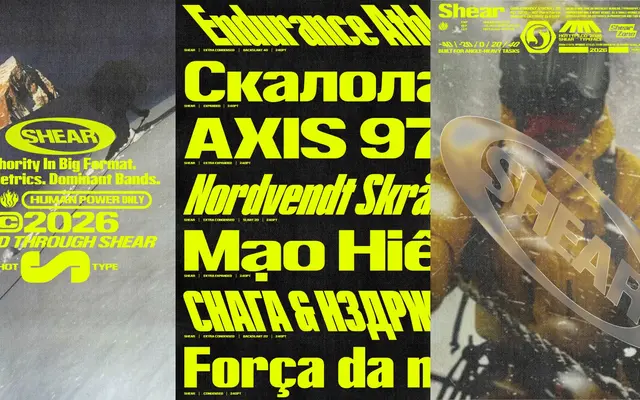
A 20-style display sans organised across four widths and five slant positions rather than a conventional weight range.
Shear forgoes the usual light-to-black weight axis in favour of four width variants — Extra Condensed, Expanded and Extra Expanded — each available in five slant positions ranging from Backslant 40 through Neutral 0 to Slant 40. The result is a family built for headline and poster work where spatial tension and angle, not weight, carry the typographic expression. Latin and Cyrillic coverage is offered as separate licensing options.
A single-weight display sans structured around width variants and a slant axis rather than weight variation; the geometric, upright construction with extreme condensed and expanded widths places it firmly in display territory.